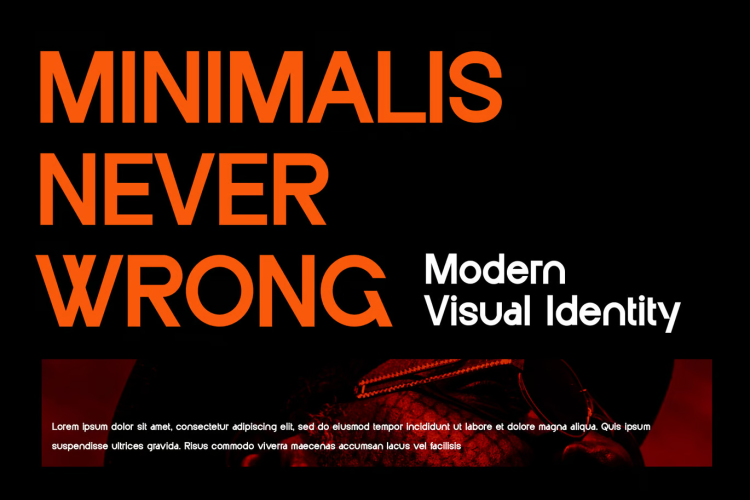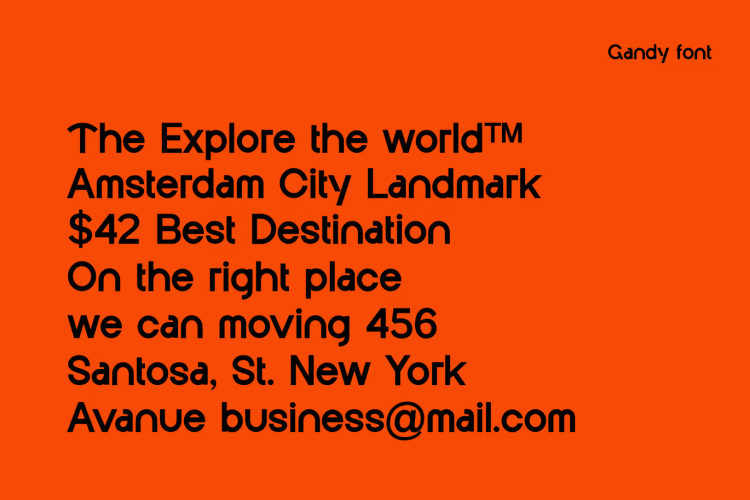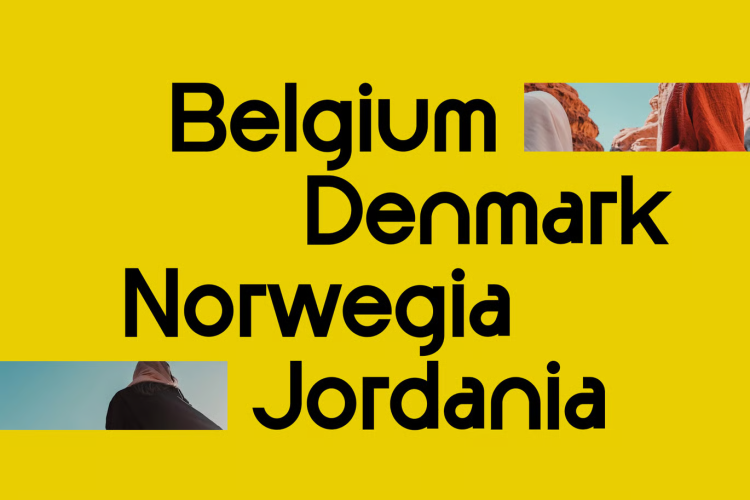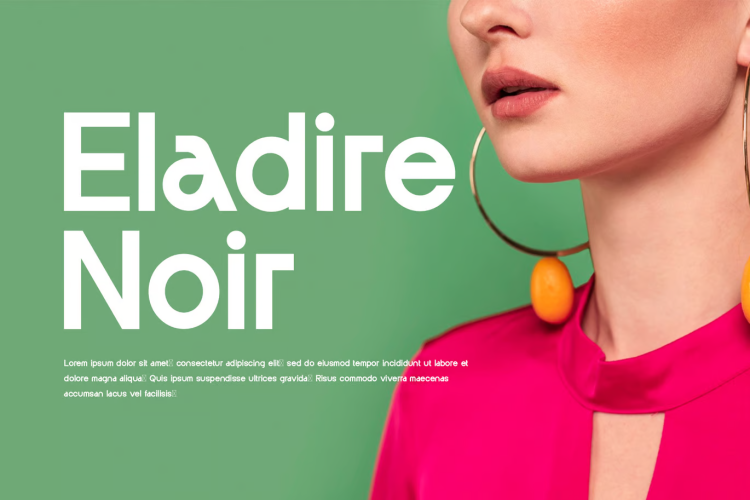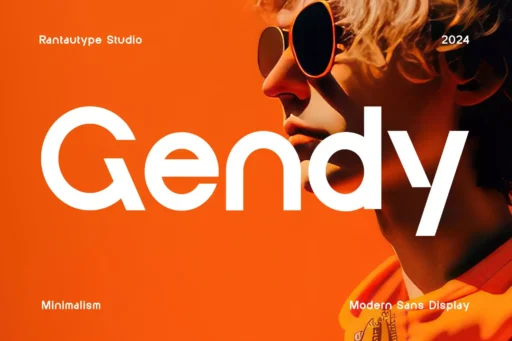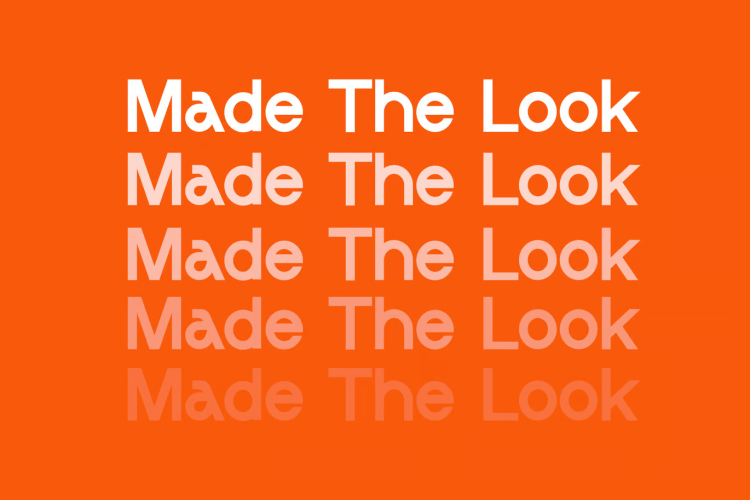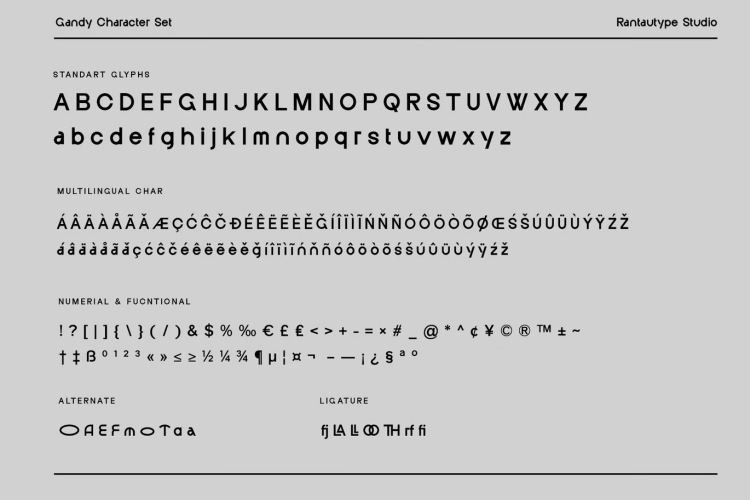
Gendy Font
Gendy is modern sans font by RantautypeStudio insprire by modern grotesque with geometric details and deep in industrial design principles. It is a perfect font for any creative projects, fashion, lifestyle designs like logo, advertisement, watermark on photography, stationery, branding, display, magazine, invitation, corporate identity, product, label, business solution and so on.
Standart Glyphs
Numberial and Functional
Alternate and Ligature
Where Gendy Font works best
Gendy Font stays legible at small sizes, which makes it a strong choice for navigation, buttons and dashboards in web design and app interfaces.
Clean sans serifs like Gendy Font are the default language of SaaS, fintech and product branding.
What is Gendy Font good for?
Gendy Font is a Sans Serif Fonts typeface tagged Branding, Creative, Editorial, Geometric. It works well for headlines, logos, posters, social media graphics and branding projects that need a distinctive sans serif fonts look.